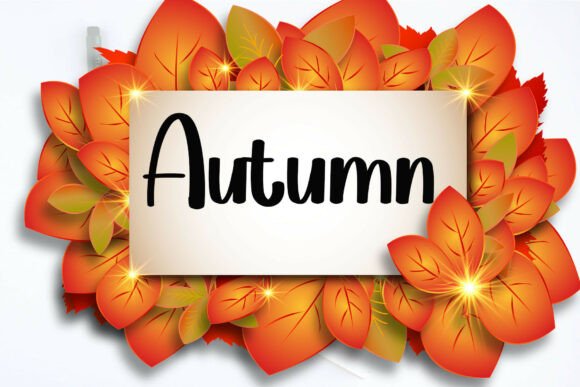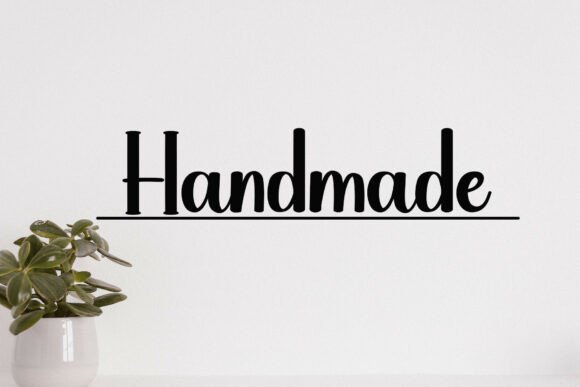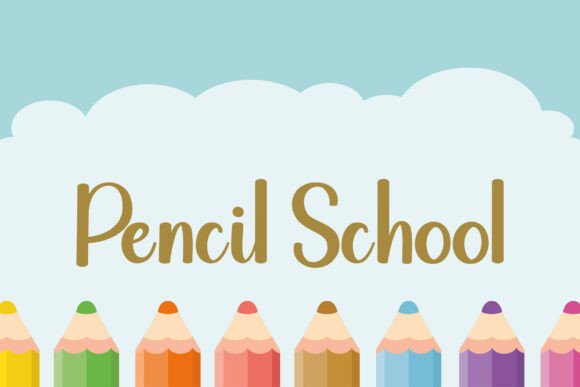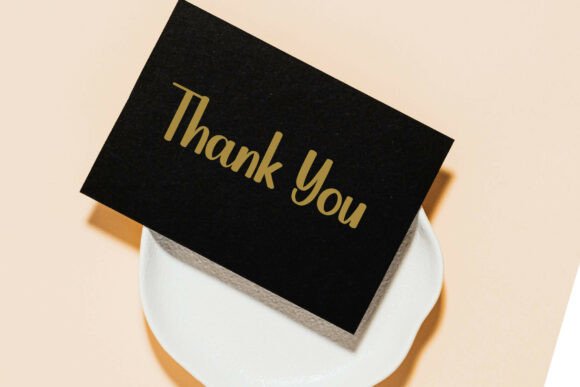
The Elegance of Calligraphy Font: A Designer’s Delight
I still remember the time I was working on a wedding invitation project, and my client asked for a font that was elegant, sophisticated, and would make their special day feel truly unforgettable. I scoured the internet, tried out countless fonts, but nothing seemed quite right. That was until I stumbled upon the beautiful world of calligraphy fonts. ✨
In that moment, I realized the power of calligraphy fonts in transforming a design from ordinary to extraordinary. With their delicate, elegant, and flowing handwritten style, calligraphy fonts have a way of bringing a touch of sophistication and glamour to any project.
What Makes Calligraphy Font So Special?
Calligraphy font is a delicate, elegant, and flowing handwritten font that has beautiful and well-balanced characters. This makes it an incredibly versatile font that can match a wide pool of designs. Whether you’re working on a wedding invitation, a branding project, or a craft, calligraphy font is sure to add a touch of elegance and sophistication.
What I Love About Calligraphy Font
- ✨ Elegant and sophisticated look that’s perfect for high-end designs
- ✅ Beautifully balanced characters that make reading easy and enjoyable
- 🌈 Versatile and adaptable to a wide range of design styles and themes
- 💫 Works beautifully with OpenType features, glyphs, and stylistic alternates
While calligraphy font is an amazing addition to any design, there are a few things to keep in mind. 🤔 For example, it can be a bit challenging to read in large blocks of text, and some of the more intricate details may get lost at smaller font sizes. ⚠️ Additionally, calligraphy font may not be the best choice for designs that require a more formal or traditional look.
A Brief Backstory: The Inspiration Behind Calligraphy Font
Calligraphy font is inspired by the art of traditional calligraphy, which dates back centuries. The font’s creator was inspired by the beautiful, flowing scripts of medieval manuscripts and sought to bring that same elegance and sophistication to modern designs.
A: Calligraphy font is a delicate, elegant, and flowing handwritten font that is perfect for adding a touch of sophistication and glamour to any design.
A: Calligraphy font is versatile and can be used for a wide range of designs, including wedding invitations, branding projects, crafts, and more.
A: Yes, calligraphy font is designed to be beautiful and well-balanced, making it easy to read in most contexts.